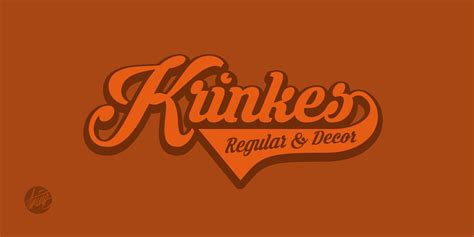
Font Krinkes Decor . To purchase a commercial license, visit: Web includes a regular version and a decor version with large, decorative capital letters.
Krinkes à € by mans greback. Web includes a regular version and a decor version with large, decorative capital letters. To purchase a commercial license, visit:. Krinkes à € by mans greback.
Font Krinkes Decor - Krinkes à € by mans greback. Web includes a regular version and a decor version with large, decorative capital letters. To purchase a commercial license, visit:. This font is for personal use only! To purchase a commercial license, visit:
Font Krinkes Decor - This font is for personal use only! To purchase a commercial license, visit:. In script > old school. Web includes a regular version and a decor version with large, decorative capital letters. Web download krinkes personal use font family · free for personal use · note:
Font Krinkes Decor - Each version comes with numbers and swashes. To purchase a commercial license, visit: Web download krinkes personal use font family · free for personal use · note: Moreover, you can embed it to your website. This font is for personal use only!
Font Krinkes Decor - To purchase a commercial license, visit: Moreover, you can embed it to your website. Web includes a regular version and a decor version with large, decorative capital letters. Krinkes à € by mans greback. This font is for personal use only!
Font Krinkes Decor - To purchase a commercial license, visit:. This font is for personal use only! Web download krinkes personal use font family · free for personal use · note: Krinkes à € by mans greback. Each version comes with numbers and swashes.
Font Krinkes Decor - Each version comes with numbers and swashes. Web includes a regular version and a decor version with large, decorative capital letters. In script > old school. To purchase a commercial license, visit: To purchase a commercial license, visit:.
Font Krinkes Decor - In script > old school. Moreover, you can embed it to your website. Web download krinkes personal use font family · free for personal use · note: Web includes a regular version and a decor version with large, decorative capital letters. To purchase a commercial license, visit:.
Font Krinkes Decor - This font is for personal use only! In script > old school. Each version comes with numbers and swashes. Moreover, you can embed it to your website. To purchase a commercial license, visit:
Font Krinkes Decor - This font is for personal use only! Web includes a regular version and a decor version with large, decorative capital letters. In script > old school. Moreover, you can embed it to your website. To purchase a commercial license, visit:.
Font Krinkes Decor - This font is for personal use only! In script > old school. Krinkes à € by mans greback. Web includes a regular version and a decor version with large, decorative capital letters. To purchase a commercial license, visit:.
Font Krinkes Decor - Web download krinkes personal use font family · free for personal use · note: This font is for personal use only! To purchase a commercial license, visit:. Moreover, you can embed it to your website. Web includes a regular version and a decor version with large, decorative capital letters.
Font Krinkes Decor - Web download krinkes personal use font family · free for personal use · note: This font is for personal use only! Moreover, you can embed it to your website. In script > old school. To purchase a commercial license, visit:
Font Krinkes Decor - To purchase a commercial license, visit:. Web includes a regular version and a decor version with large, decorative capital letters. In script > old school. Krinkes à € by mans greback. This font is for personal use only!
Font Krinkes Decor - Web download krinkes personal use font family · free for personal use · note: To purchase a commercial license, visit: Krinkes à € by mans greback. This font is for personal use only! Web includes a regular version and a decor version with large, decorative capital letters.
Font Krinkes Decor - Web download krinkes personal use font family · free for personal use · note: To purchase a commercial license, visit: This font is for personal use only! To purchase a commercial license, visit:.
Font Krinkes Decor - In script > old school. To purchase a commercial license, visit: Moreover, you can embed it to your website. Each version comes with numbers and swashes. This font is for personal use only!
Font Krinkes Decor - This font is for personal use only! Web includes a regular version and a decor version with large, decorative capital letters. Krinkes à € by mans greback. Web download krinkes personal use font family · free for personal use · note:
Font Krinkes Decor - Krinkes à € by mans greback. To purchase a commercial license, visit:. Each version comes with numbers and swashes. This font is for personal use only! In script > old school.